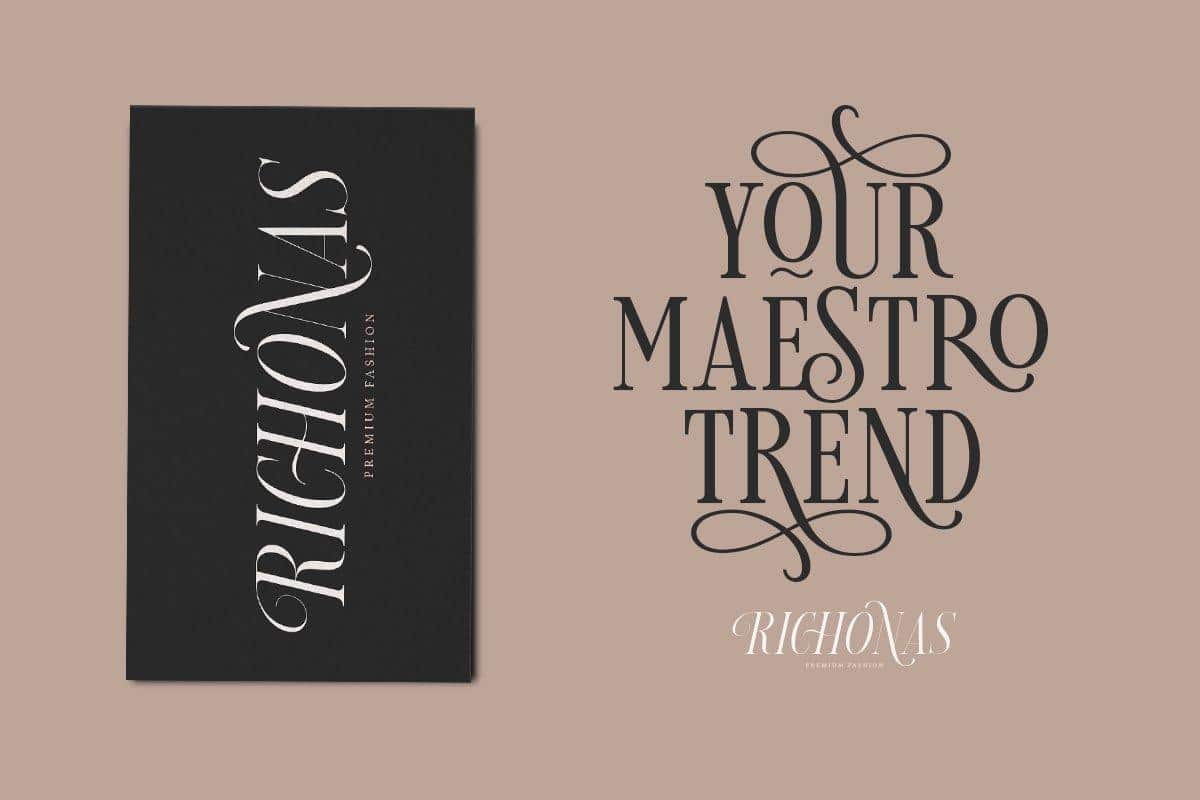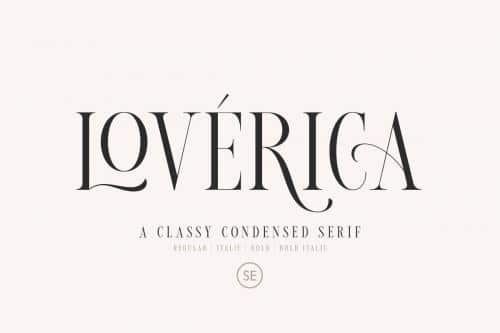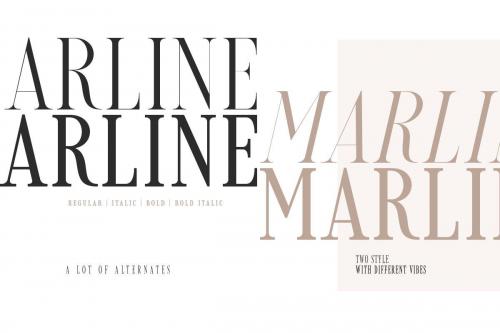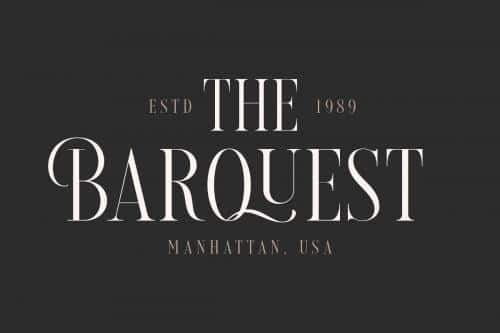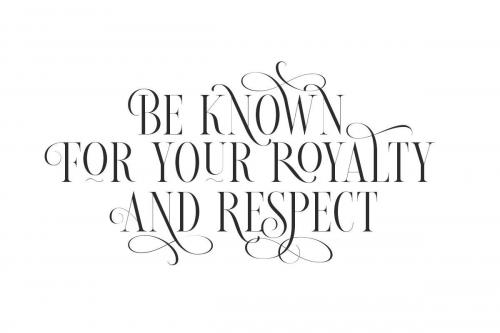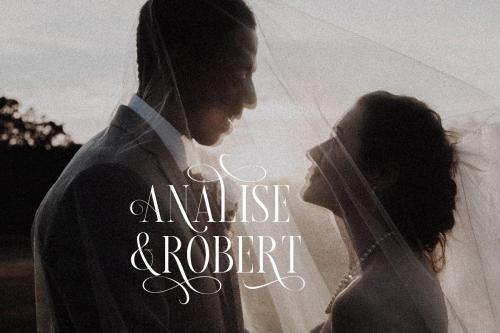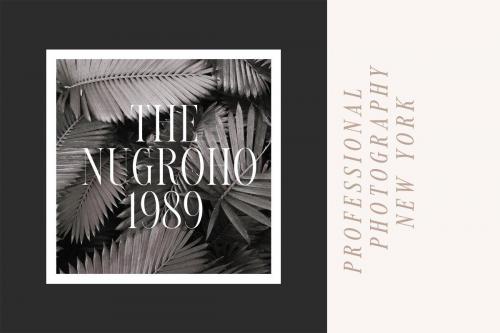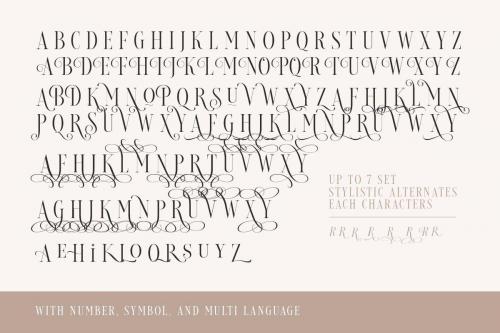
Introducing Loverica Classy Serif Font – an elegant condensed serif with a bunch of alternates! Loverica is a classic and modern serif with a bunch of alternates up to 7 style for each characters that will make your presentation or logo even more stunning and stand out! With four style that you can use for several purpose!